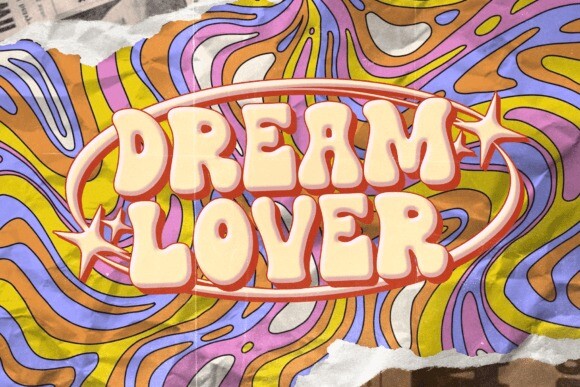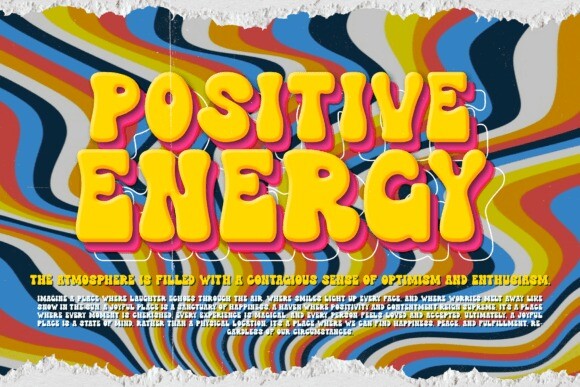
Chuckle Freaky Font
Chuckle Freaky Font is a fun, funky character from the Y2K era, styled in bright, eye-catching graffiti designs. With a playful, slightly weird vibe, Chuckle Freaky brings together bold colors, wavy lines, and a bit of retro 2000s flair. Think of it as a mix of cartoonish street art and wild, groovy energy!